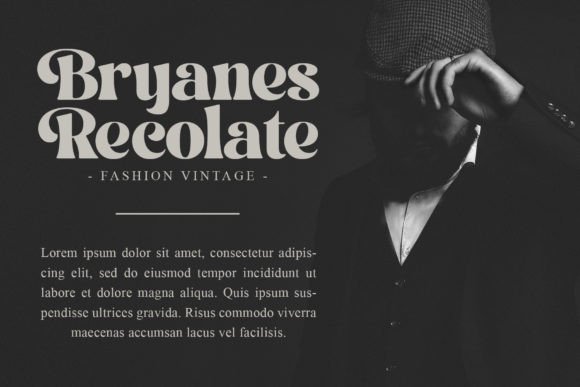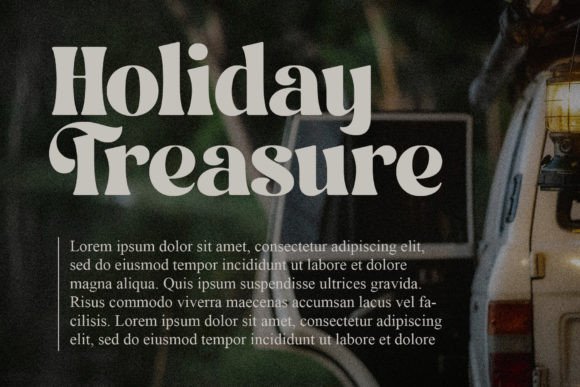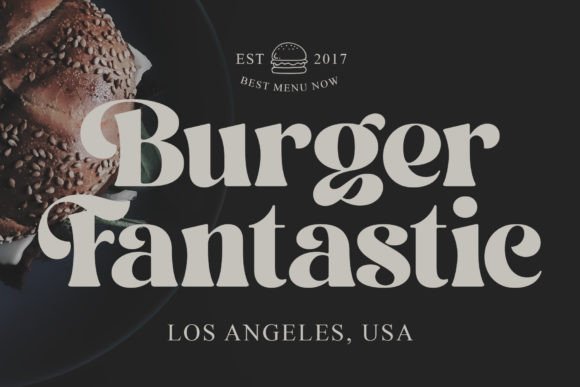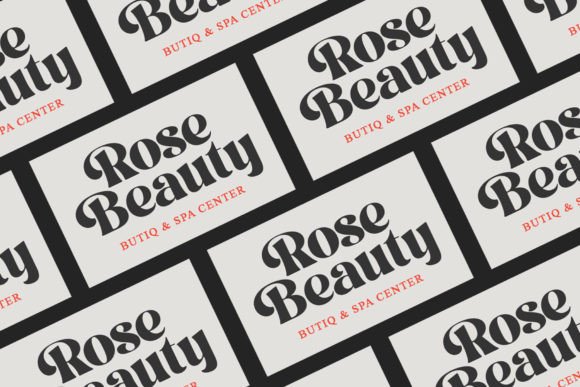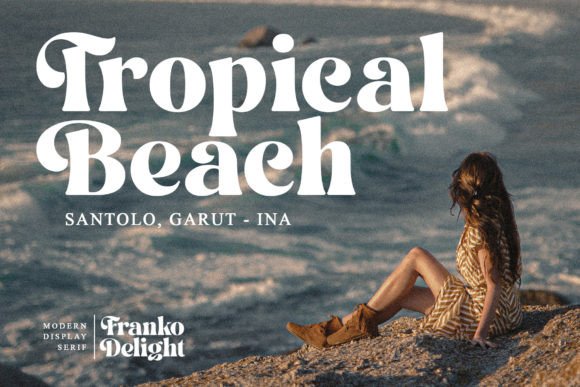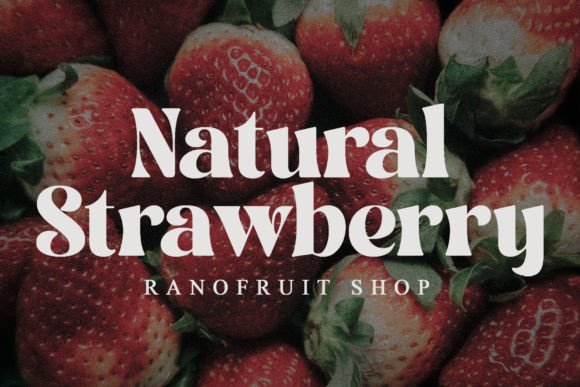
Introducing Franko Delight Font: Elevate Your Designs with Elegance
In the world of typography, a font can make or break a design. For designers and crafters seeking to add a touch of sophistication and modernity to their work, Franko Delight Font is an exceptional choice. This special modern style font combines regular and stylistic letters in a beautiful, elegant design that is sure to make your work stand out.
What Makes Franko Delight Font Special?
Franko Delight Font is not just another font; it’s a masterpiece created with pinpoint accuracy, boasting beautiful curves that give it a unique and refined look. This elegant font is perfect for a variety of design projects, including branding designs, logos, greeting cards, title packaging, and more. Its versatility and aesthetic appeal make it an invaluable asset for designers looking to elevate their creations.
Key Features of Franko Delight Font
• Modern Style: Franko Delight Font embodies a modern style that is both current and timeless, making it suitable for a wide range of design applications.
• Elegant Design: The font’s elegant curves and sophisticated lettering make it perfect for designs that require a touch of class and refinement.
• Mix of Regular and Stylistic Letters: The unique blend of regular and stylistic letters sets Franko Delight apart, offering designers a rich palette of typographic options.
• Versatility: From branding and logos to greeting cards and packaging, Franko Delight Font’s versatility makes it an excellent choice for various design projects.
Applications of Franko Delight Font
The applications of Franko Delight Font are vast and varied. Here are some of the most notable uses:
• Branding Designs: Create memorable brand identities with Franko Delight Font’s elegant and modern aesthetic.
• Logos: Design unique and impactful logos that stand out with the font’s distinctive style.
• Greeting Cards: Add a touch of elegance to your greeting cards, making them perfect for special occasions.
• Title Packaging: Enhance your product packaging with sophisticated and eye-catching titles.
• Other Designs: Explore other creative projects such as posters, flyers, and digital content with Franko Delight Font’s versatile design.
Why Choose Franko Delight Font?
In a sea of fonts, Franko Delight stands out for several reasons:
• Unique Aesthetic: Its blend of modernity and elegance offers a fresh alternative to more traditional fonts.
• High-Quality Design: Crafted with attention to detail, Franko Delight Font ensures that your designs look professional and polished.
• Easy to Read: Despite its stylistic elements, the font maintains readability, making it practical for a variety of uses.
Franko Delight Font is more than just a typeface; it’s a design tool that can elevate your work to new heights of elegance and sophistication. Whether you’re a professional designer or a crafter looking to add a special touch to your projects, Franko Delight Font is an excellent choice. Its modern style, elegant design, and versatility make it a valuable addition to any designer’s toolkit. Explore the possibilities with Franko Delight Font and discover how it can enhance your creative projects.